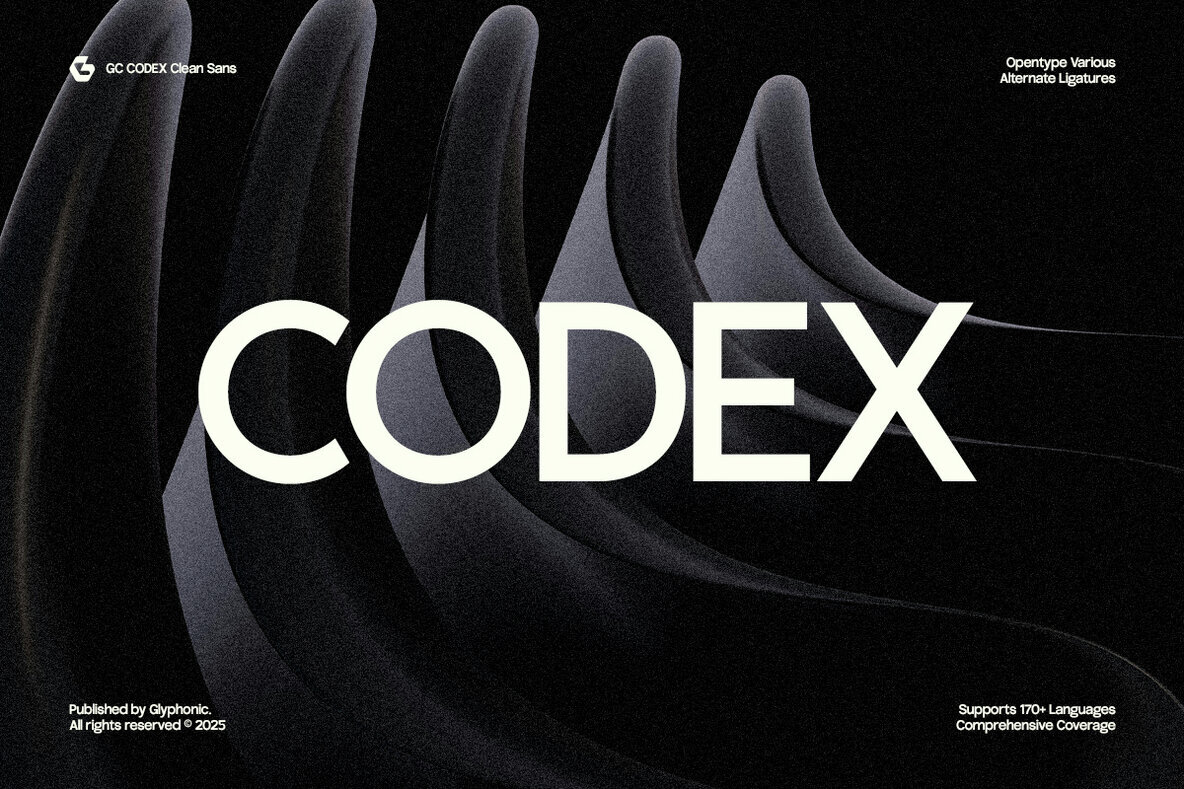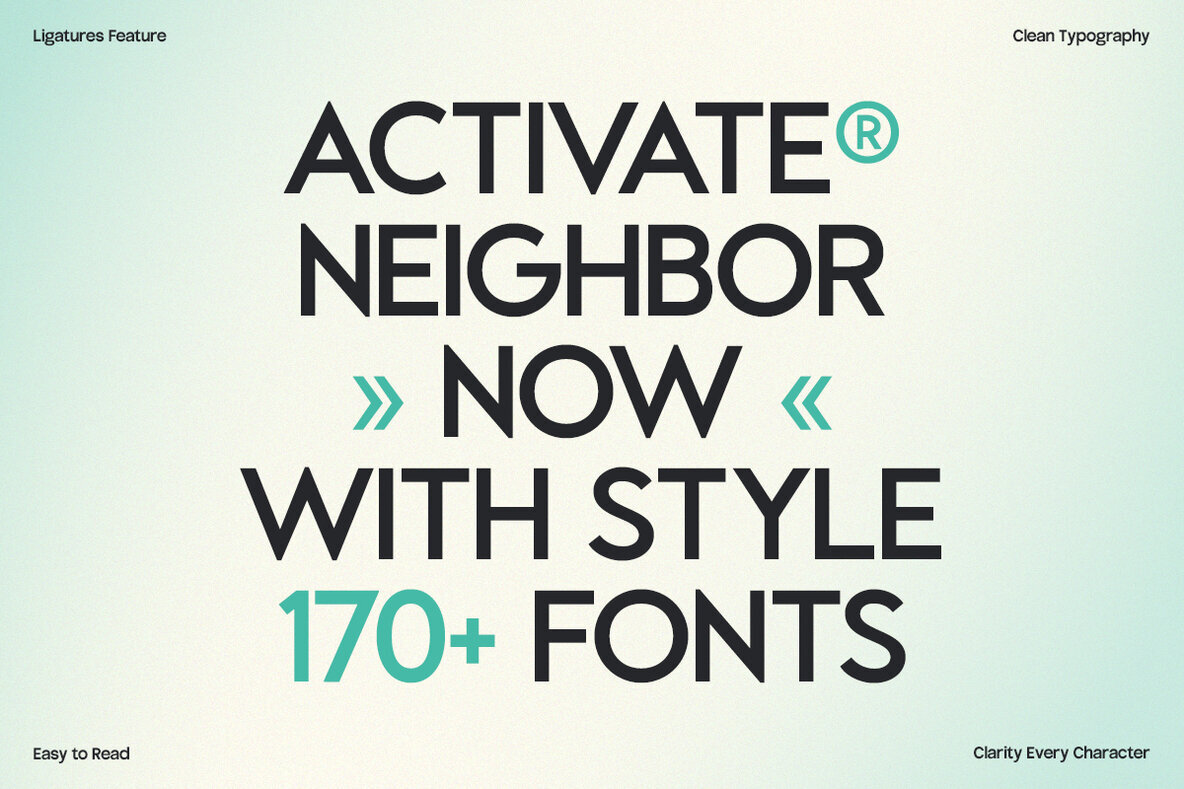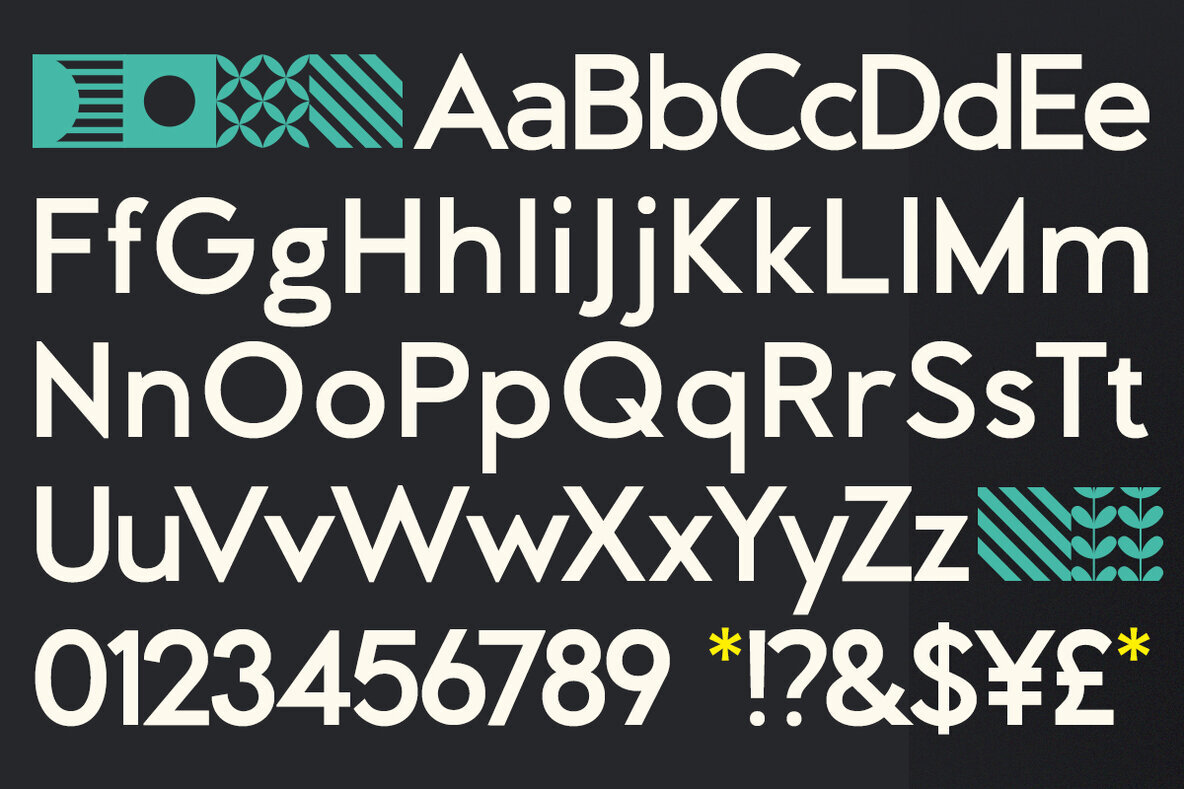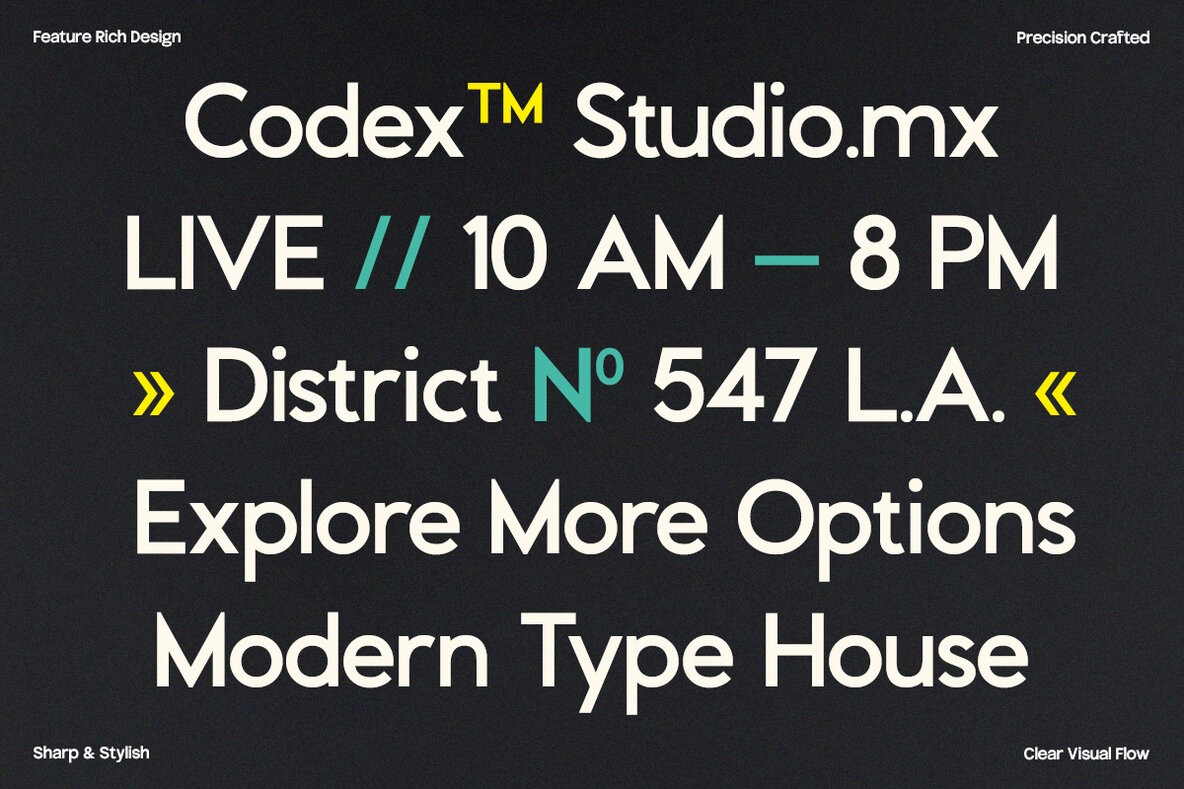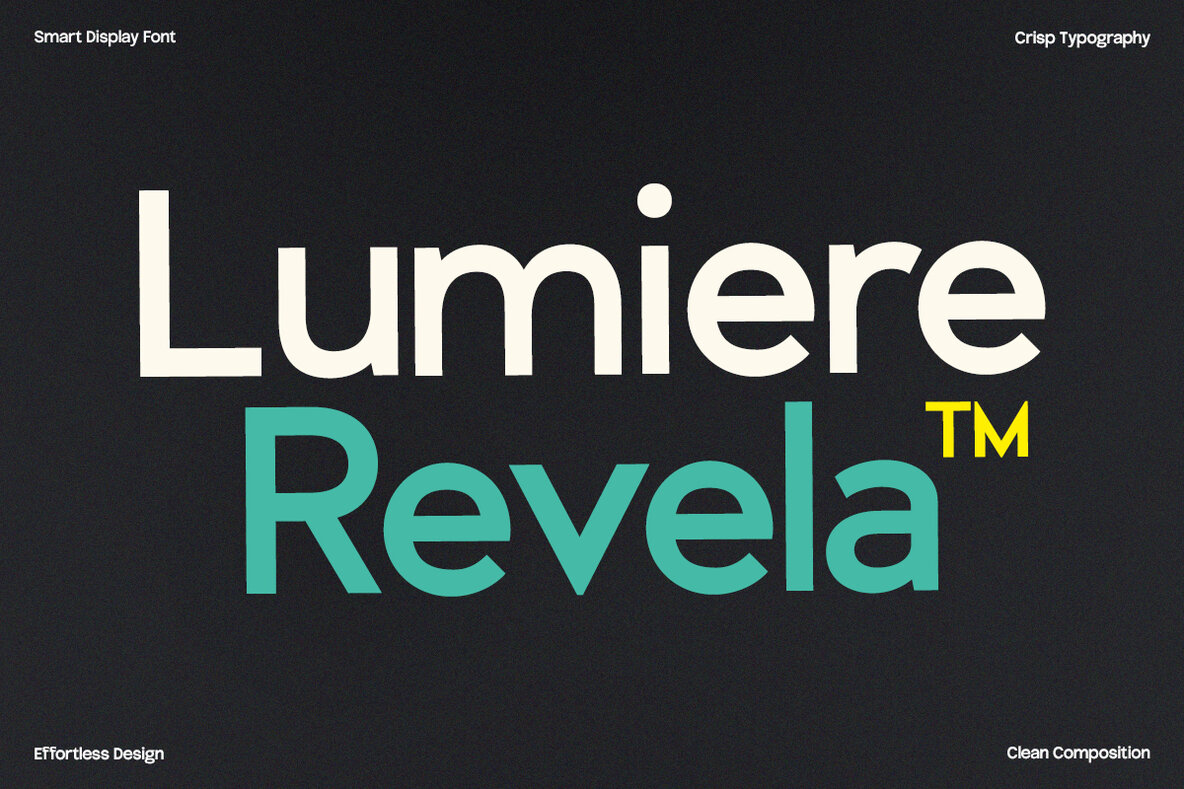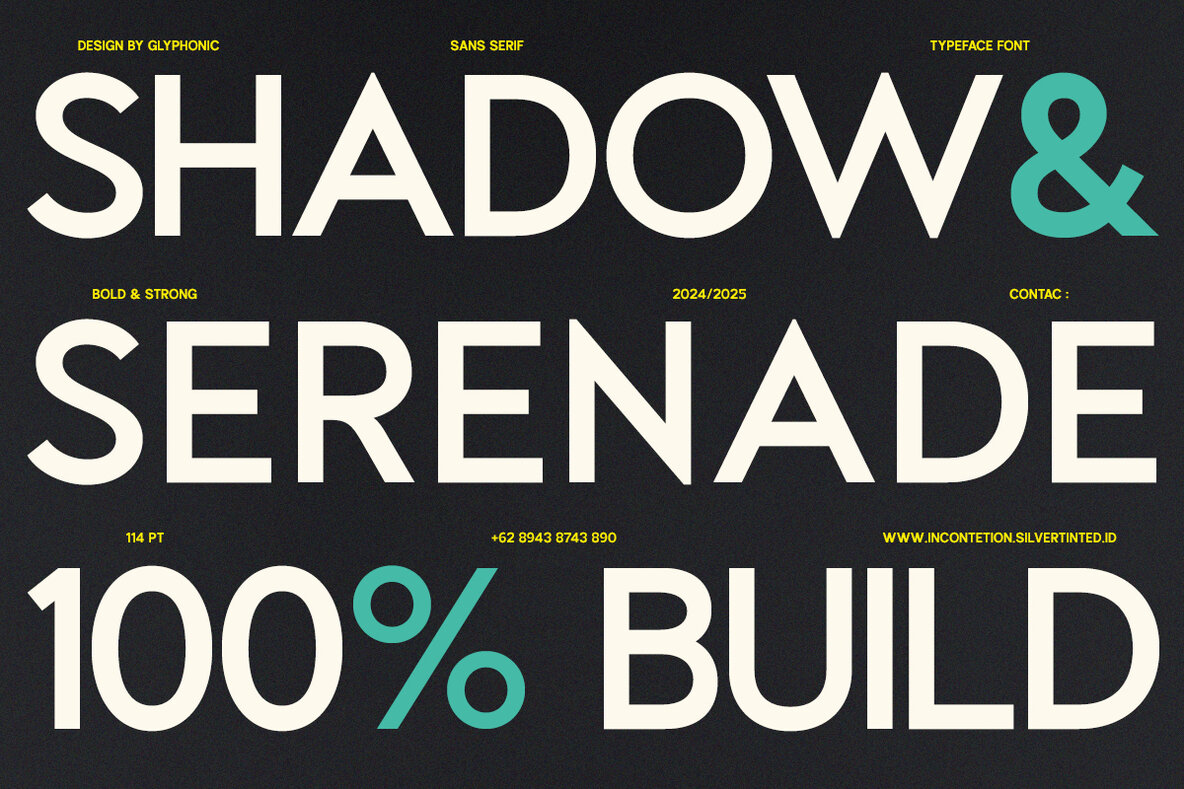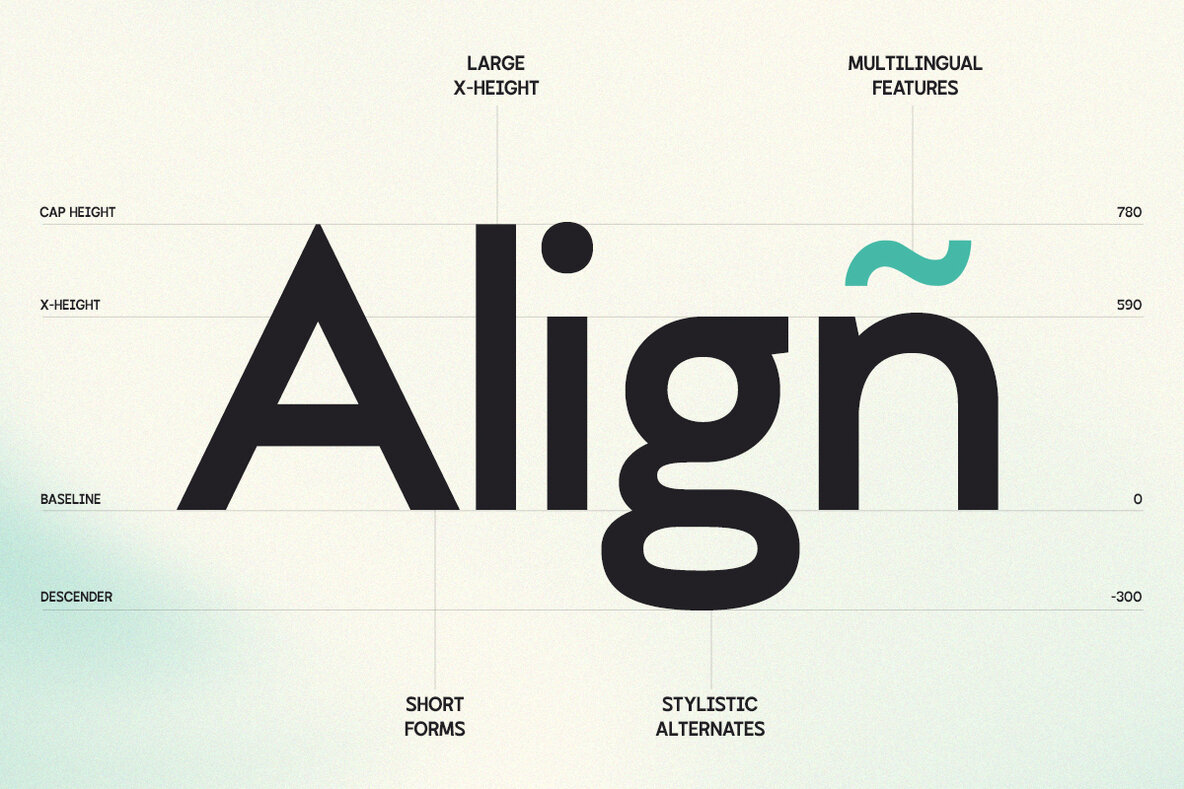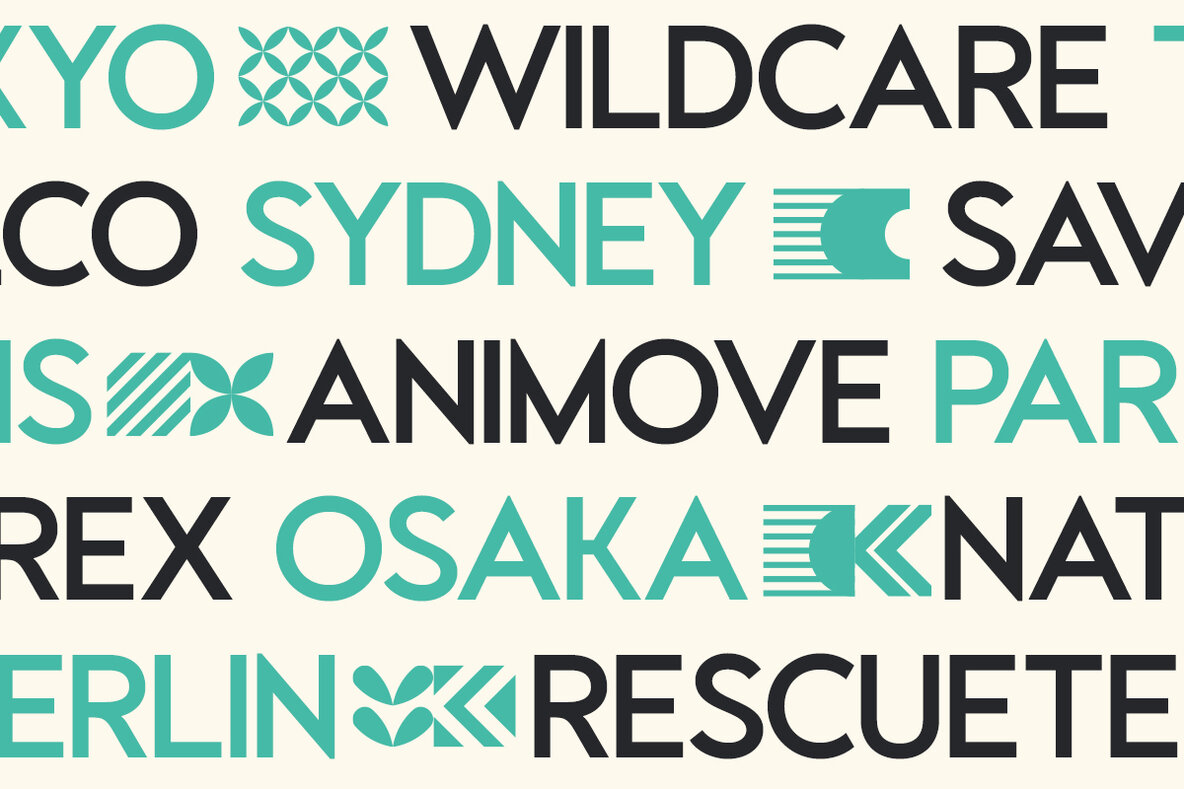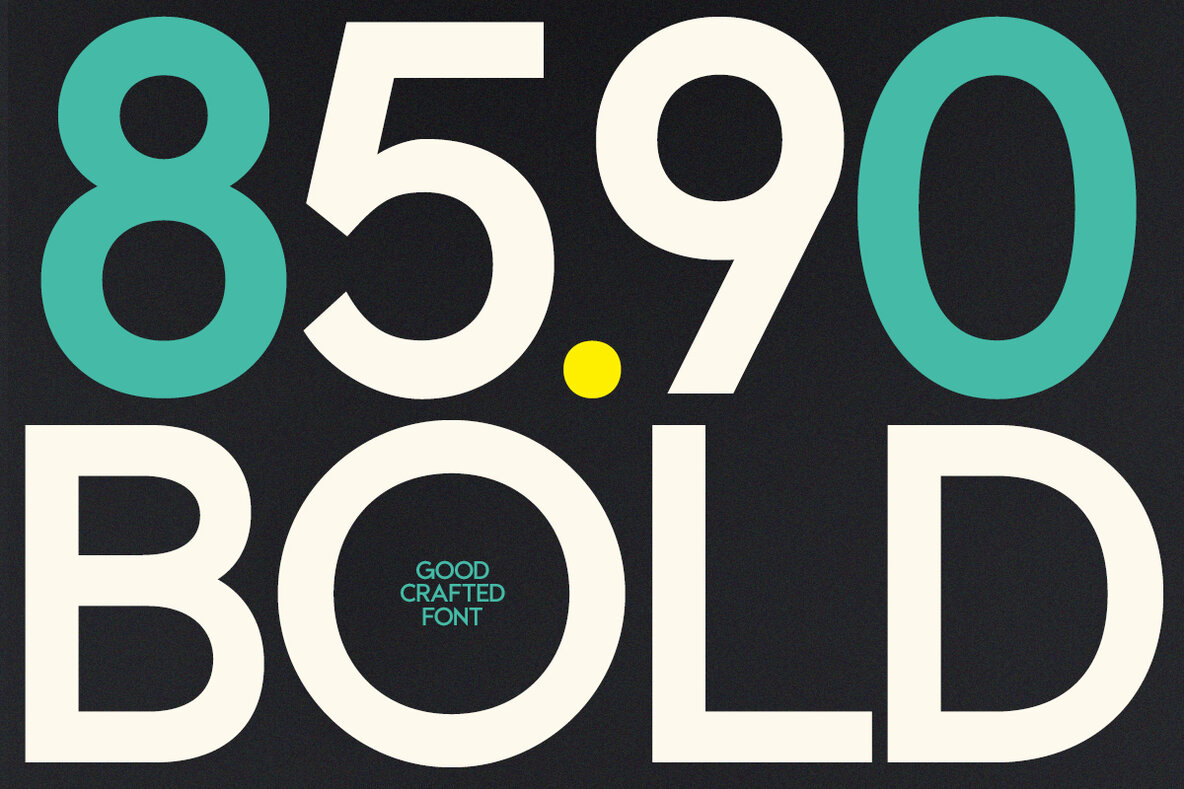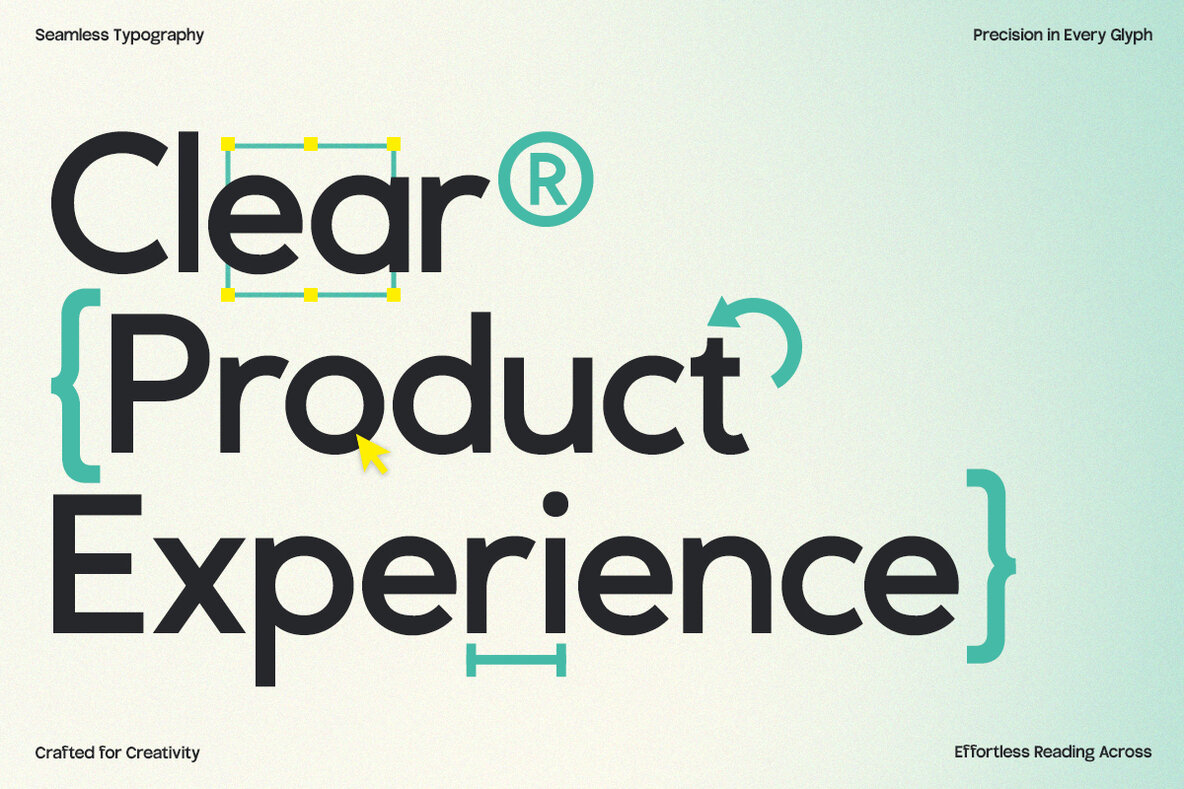
GC Codex Font
GC CODEX Regular
GC Codex combines geometric precision with modern clarity, making it an ideal choice for designers who seek balance and minimalism. Its versatility extends across headlines, branding, logos, digital interfaces, packaging, and editorial layouts. The typeface's clean construction and confident tone render it perfect for high-impact visual communication. With uniform stroke widths, sharp terminals, and subtly softened curves, GC Codex maintains a professional aesthetic that exudes warmth and approachability. Whether utilized in tech branding, futuristic posters, or minimalist web design, this typeface offers remarkable flexibility and style.GC Codex: A Neo-Grotesque Sans-Serif Typeface